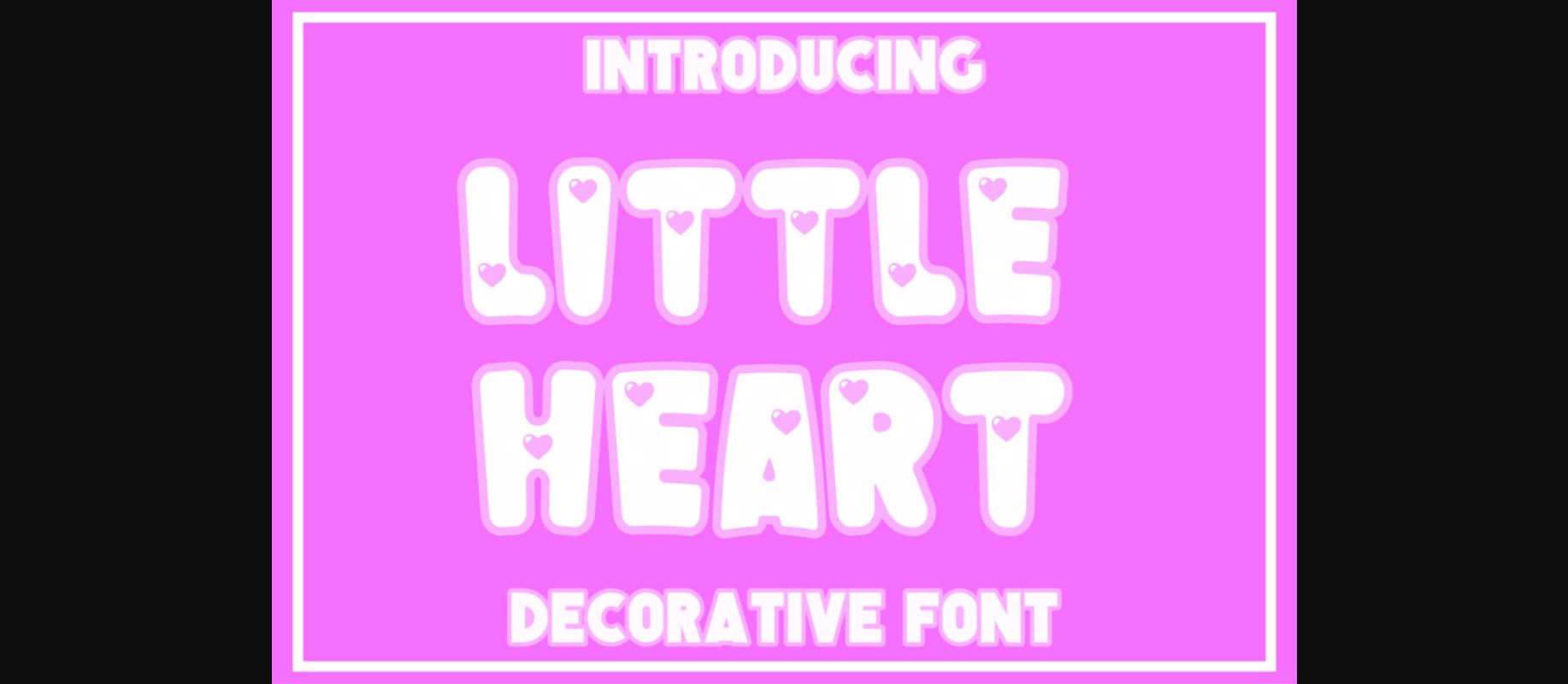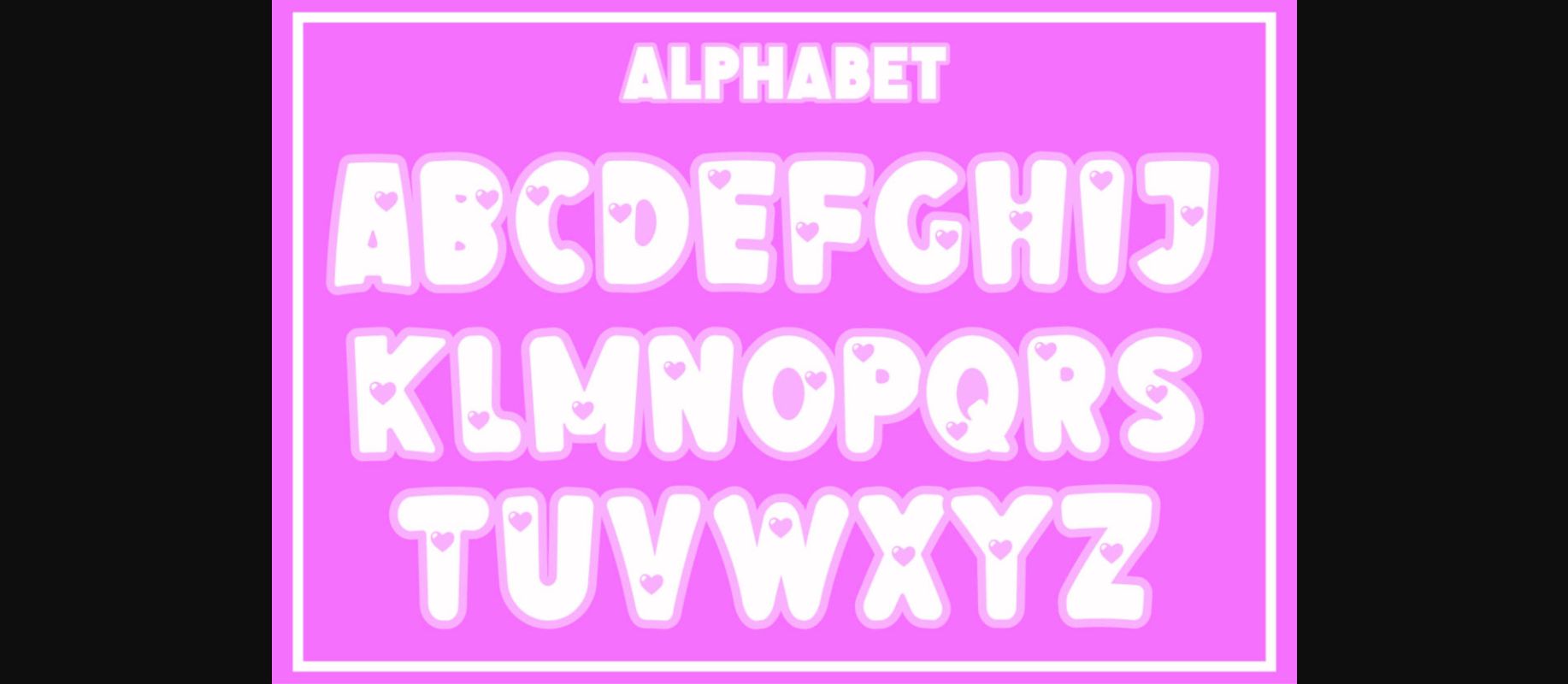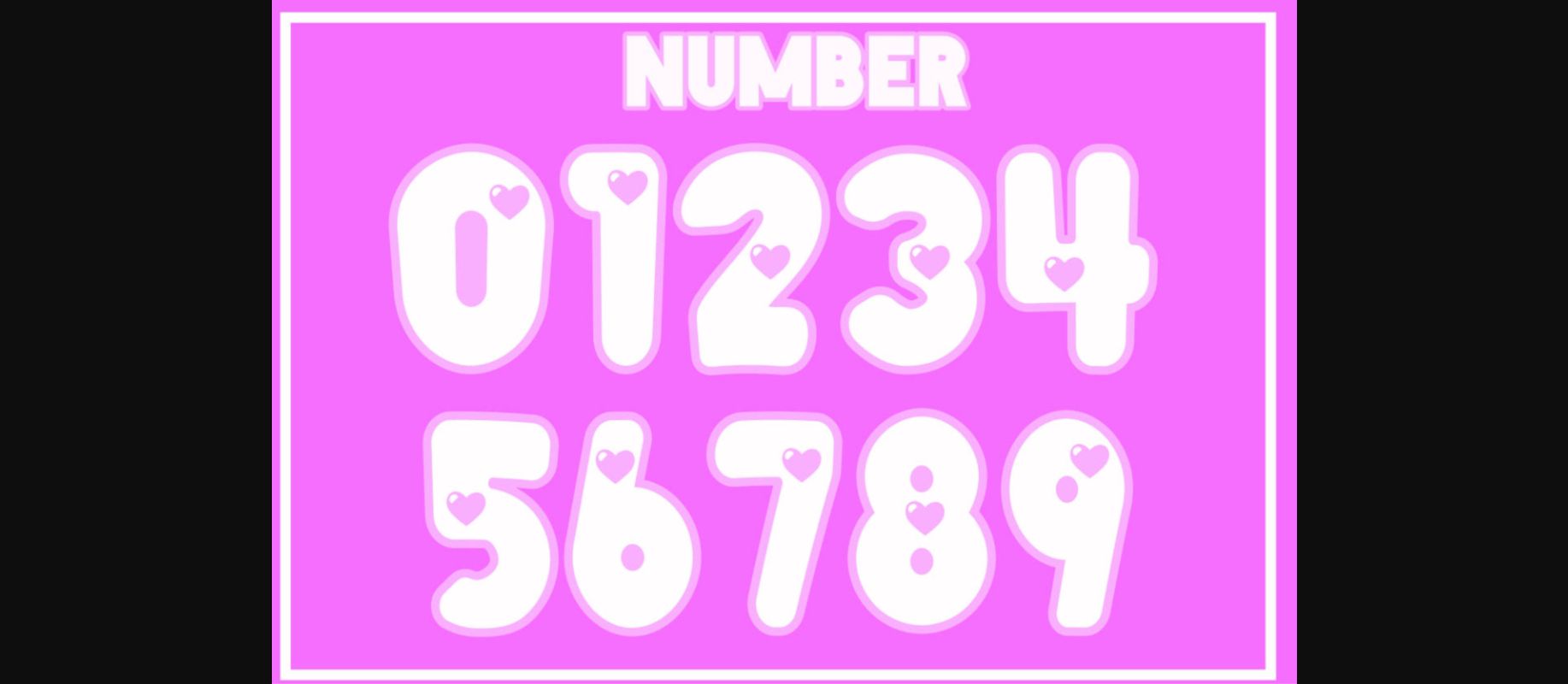
HomeDecorative FontsLittle Heart Font Decorative Fonts Little Heart Font FacebookXPinterestWhatsApp 1 of 5 ... Little Heart Font Poster 2... Little Heart Font Poster 3... Little Heart Font Poster 4... Little Heart Font Poster 5... About Little Heart Font Little Heart is a chic and lovely decorative font. This font is the perfect fit for all of your logos, branding, social media, crafty DIY projects, and much more! DOWNLOAD NOW People also explored Amirah Brillone Font Bella Ray Font Spiroy Golden Font Jahilliah Font Lemon Trifle Font Heaven Font Motorcycles Font Nottingham Script Font Romance Font 274 0 TagsLittle Heart Font Previous articleYeti Bigfoot FontNext articleStarry Night Font LEAVE A REPLY Cancel reply Comment: Please enter your comment! Name:* Please enter your name here Email:* You have entered an incorrect email address! Please enter your email address here Website: Save my name, email, and website in this browser for the next time I comment. Personal Use Free Batik Classic Personal Use Free Read more about this font A New Nattyla Personal Use Free Read more about this font Rookie Mastering Personal Use Free Read more about this font Ancient Script Personal Use Free Read more about this font BLOG Free Fonts Risk: Why Free Fonts Can Be Dangerous for Designers Free Fonts Risk: Why Free Fonts Can Be Dangerous for Designers Using free fonts is a common practice in web and graphic design. However, the... Top 7 Google Fonts Alternatives for Faster and Privacy-Friendly Web Design (2025) Elegant Wedding Invitation Fonts – Handwritten & Script Fonts Fonts That Capture the Spirit of New York City